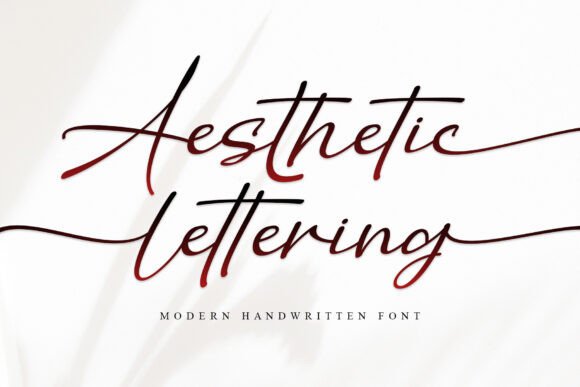
The Aesthetic Lettering Font: A Refreshingly Authentic Handwritten Style
I’ll never forget the design moment that led me to discover the Aesthetic Lettering font. I was working on a branding project for a boutique client, and I was struggling to find the perfect handwritten font that captured the essence of her elegant and sophisticated brand. The client had specifically requested a font that would “whisper” luxury and refinement, rather than shout it. After hours of scouring font libraries and testing various options, I stumbled upon Aesthetic Lettering – and it was love at first sight! ✨
- ✨ Unique and organic artistry that sets it apart from other handwritten fonts
- ✅ Stylized natural elements that add a touch of sophistication and elegance
- 💫 Versatile and highly legible, making it perfect for a wide range of design applications
- 🎨 Exquisite craftsmanship that rivals traditional penmanship
A Practical Guide: Using Aesthetic Lettering in Your Designs
The Designer Inspiration Behind Aesthetic Lettering
Aesthetic Lettering was inspired by the traditional penmanship of the past, with a modern twist. The designer, who wishes to remain anonymous, was fascinated by the art of handwriting and the unique characteristics of individual lettering styles. Through countless hours of research and experimentation, they crafted Aesthetic Lettering as a tribute to the beauty and elegance of handwritten scripts.
Q: What makes Aesthetic Lettering unique?
A: Aesthetic Lettering’s unique blend of natural elements, stylized letterforms, and exquisite craftsmanship sets it apart from other handwritten fonts.
Q: Is Aesthetic Lettering suitable for body text?
A: While Aesthetic Lettering is highly legible, it’s best suited for display text or headings. For body text, consider pairing it with a clear, sans-serif font for optimal readability.